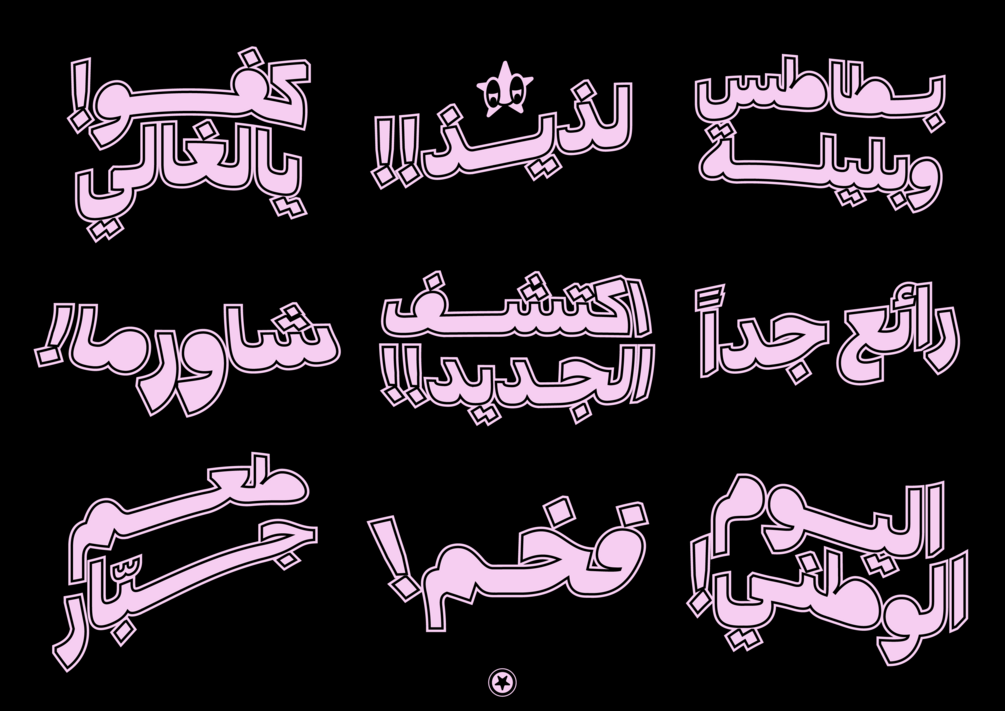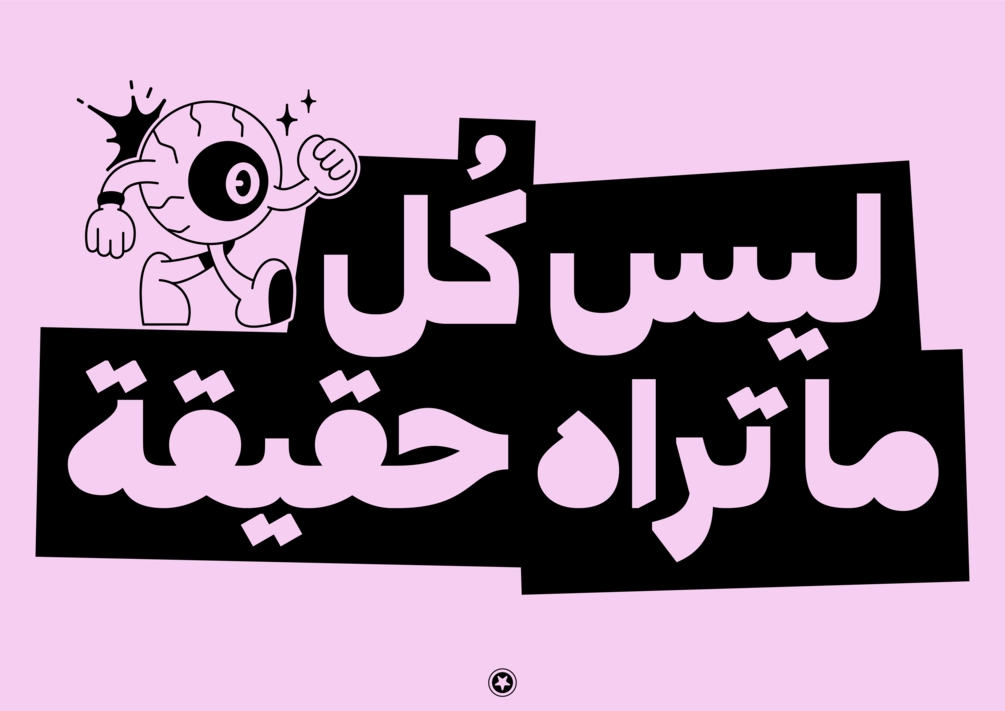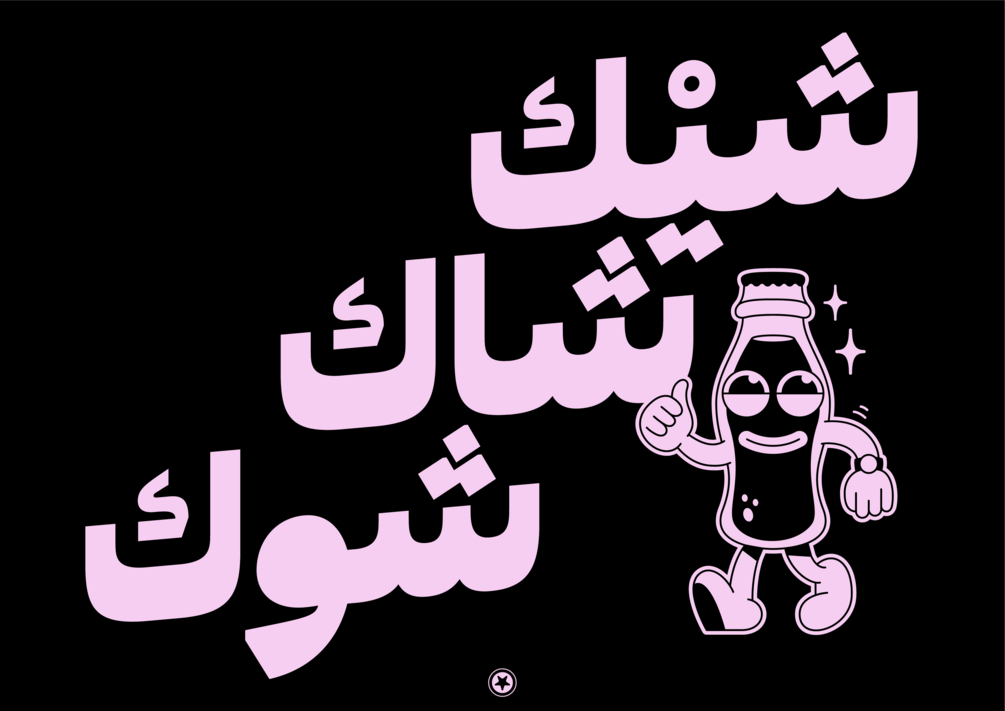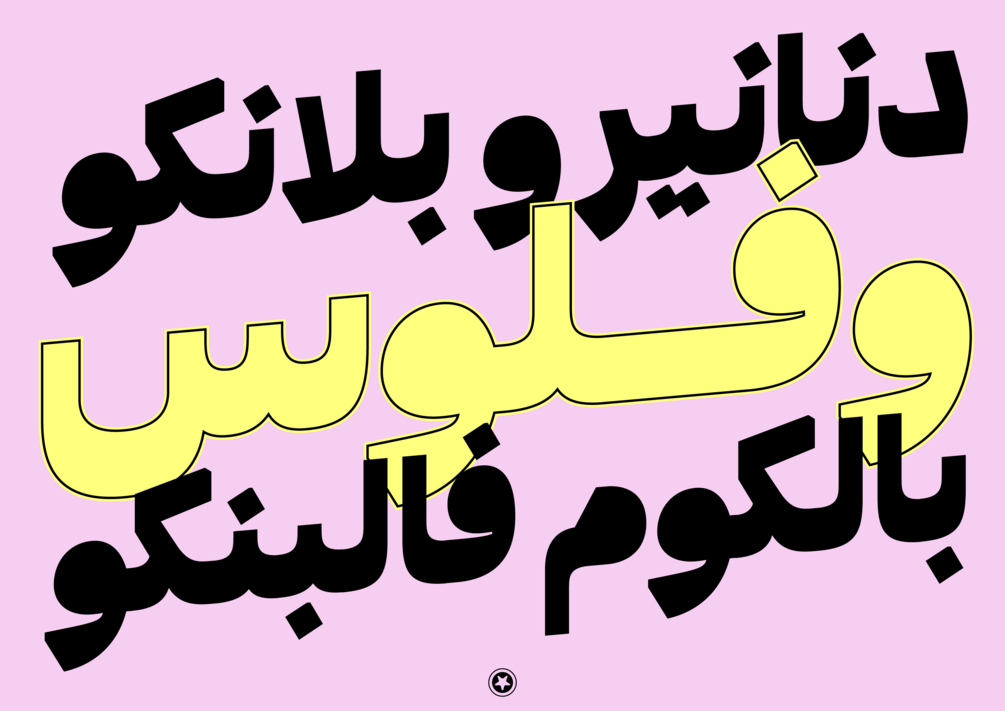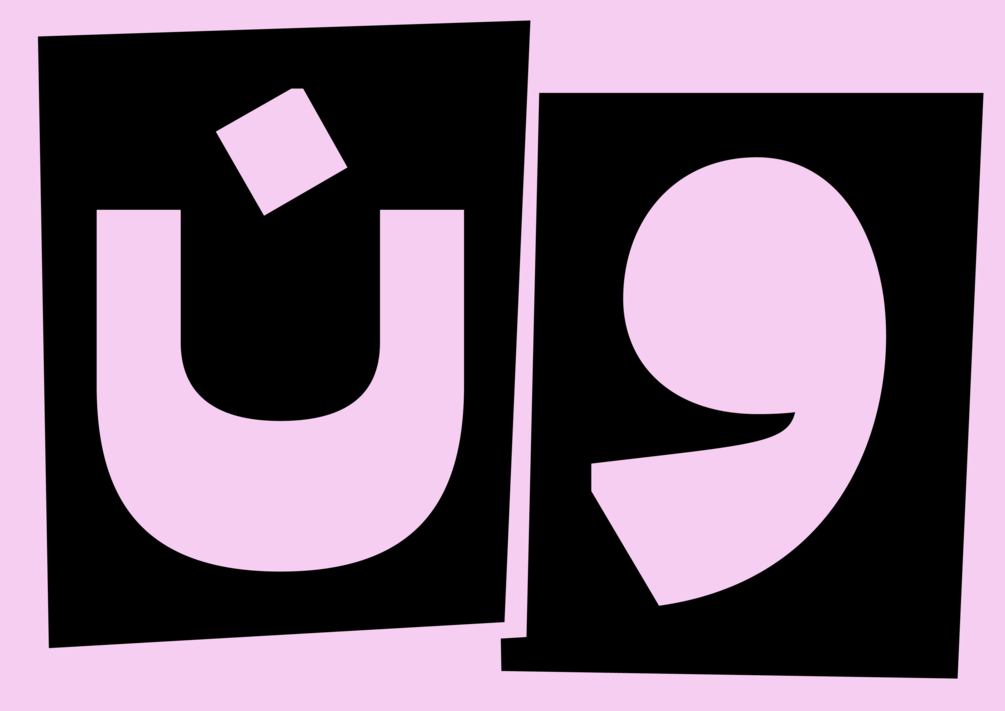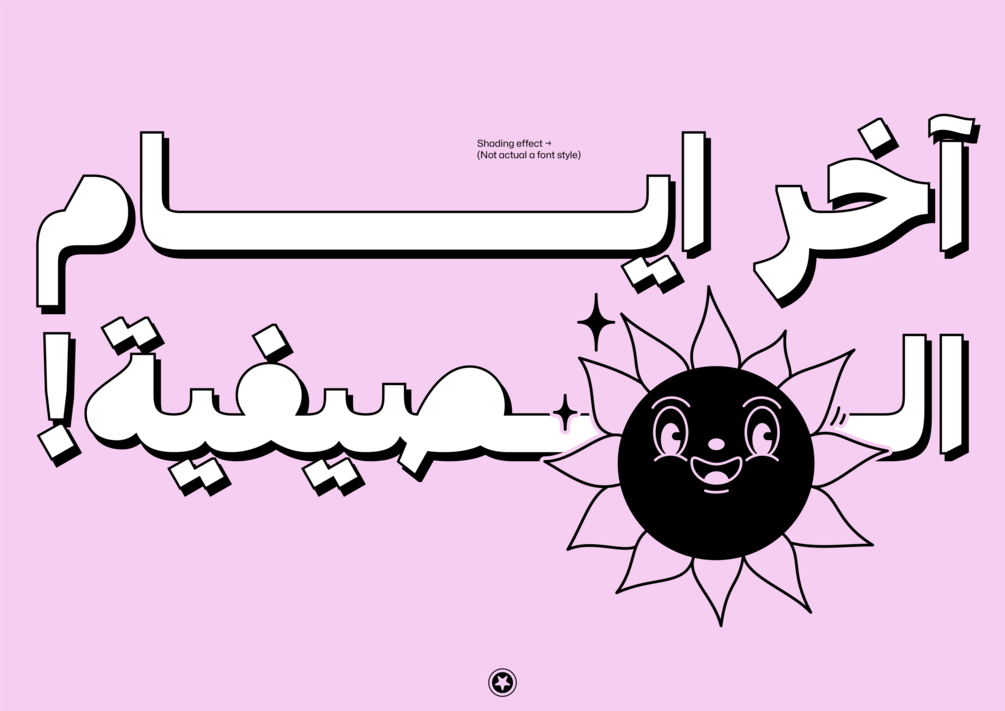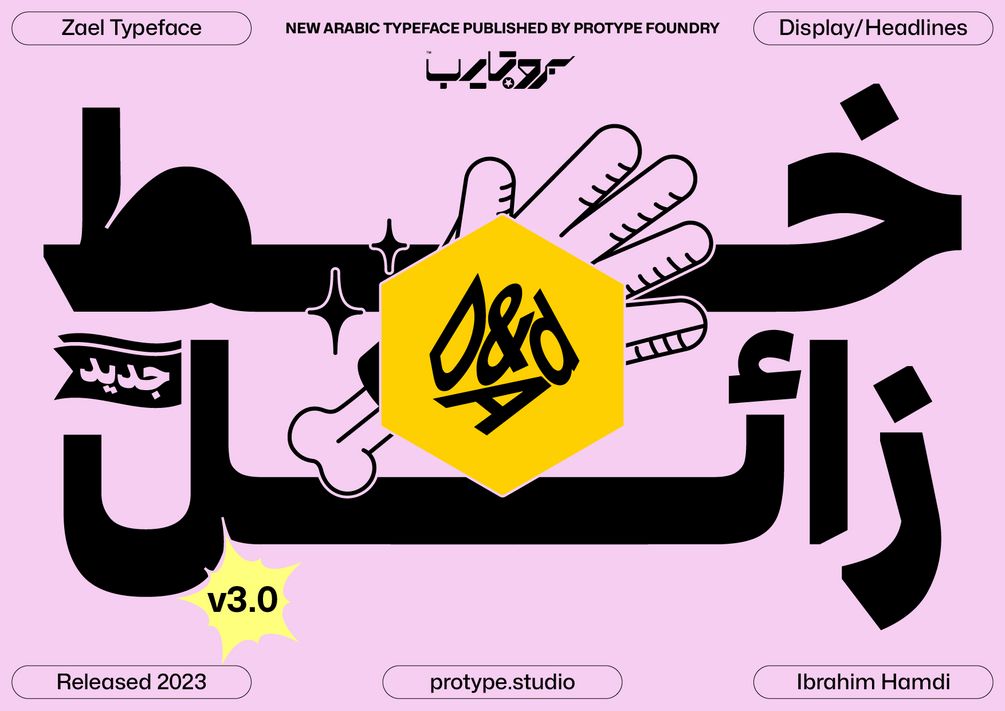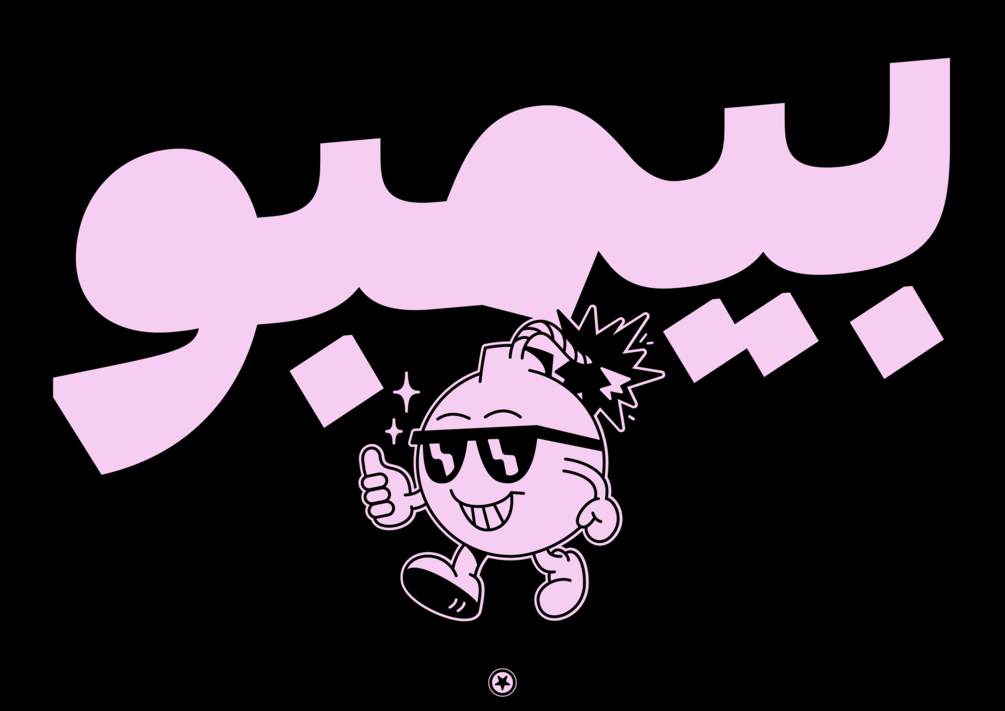
Behind the story of Zael
The typography industry is a USD 13 Million industry, where illegal downloads and usage of fonts deprive typographers of valuable income. One of them is a leading Arabic Typographer, Ibrahim Hamdi, who is now diagnosed with Keratoconus - rapidly losing his eyesight. While his fonts have been downloaded by many, he's never received any of the profits, that could have been pivotal in funding his surgery. We launched 'Zael, the Disappearing'. A font that loses clarity as its creator loses his eyesight.
Designer: Ibrahim Hamdi
About Zael
Zael's awarded in Dubai Lynx (1 Silver and 2 Bronze) and shortlisted in multiple categories, Also awarded a Wood Pencil award in D&AD 2024, Recently Zael's won a bronze in Cannes Lions 2024.
Zael is an eye-catching Arabic display typeface designed with a thick base inspired by the Naskh script, making it visually appealing for screens and headlines. This typeface takes inspiration from classic Naskh calligraphy but incorporates modern touches, making it well-suited for contemporary designs. It is an excellent choice for creating captivating posters and visuals that seamlessly align with modern brands.
Zael's letterforms are crafted based on pre-experimental lettering by Ibrahim Hamdi. It was design a complete typeface with harmonious and consistent posed a significant challenge. Zael's was designed in October 2023, and it's including OpenType features, and support for additional languages such as Urdu, Persian, and Kurdish. Designed by Ibrahim Hamdi and font engineering by Abdo Mohamed. Copyright © 2023 by Protype Foundry. All rights reserved.